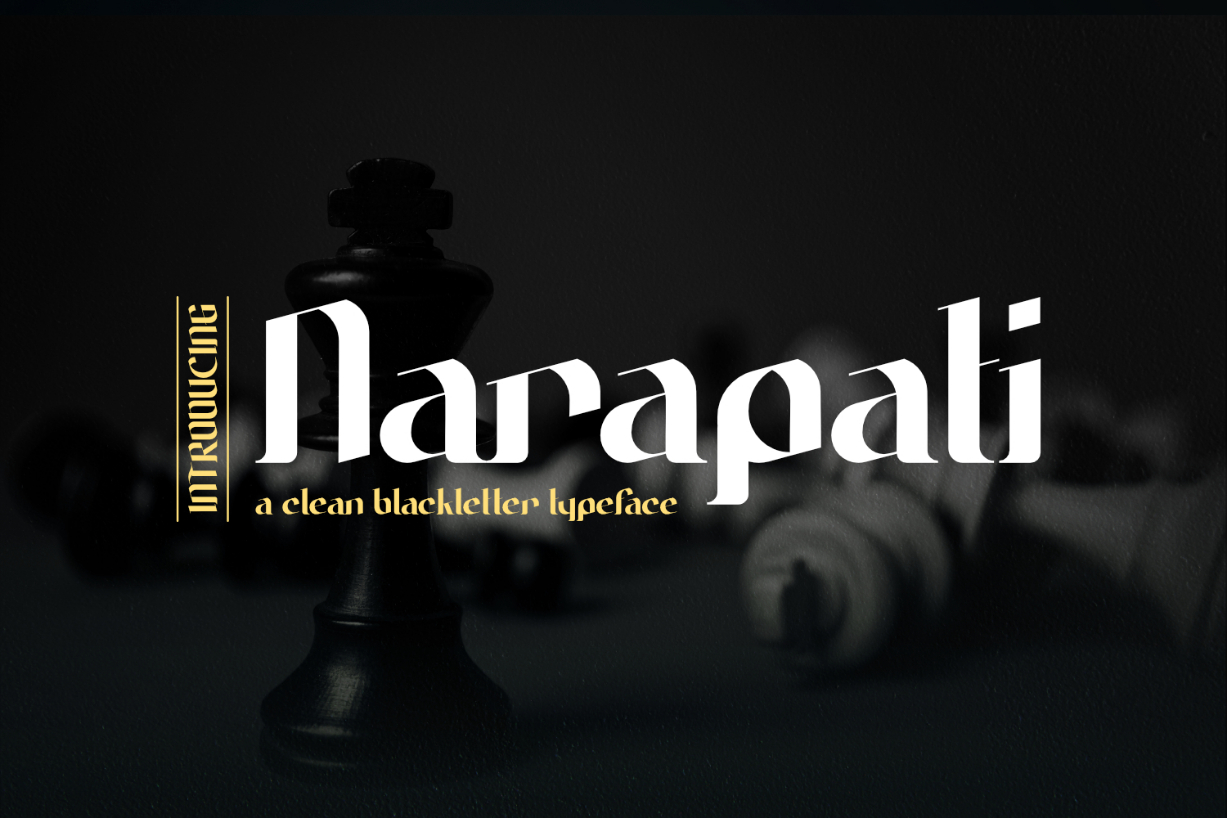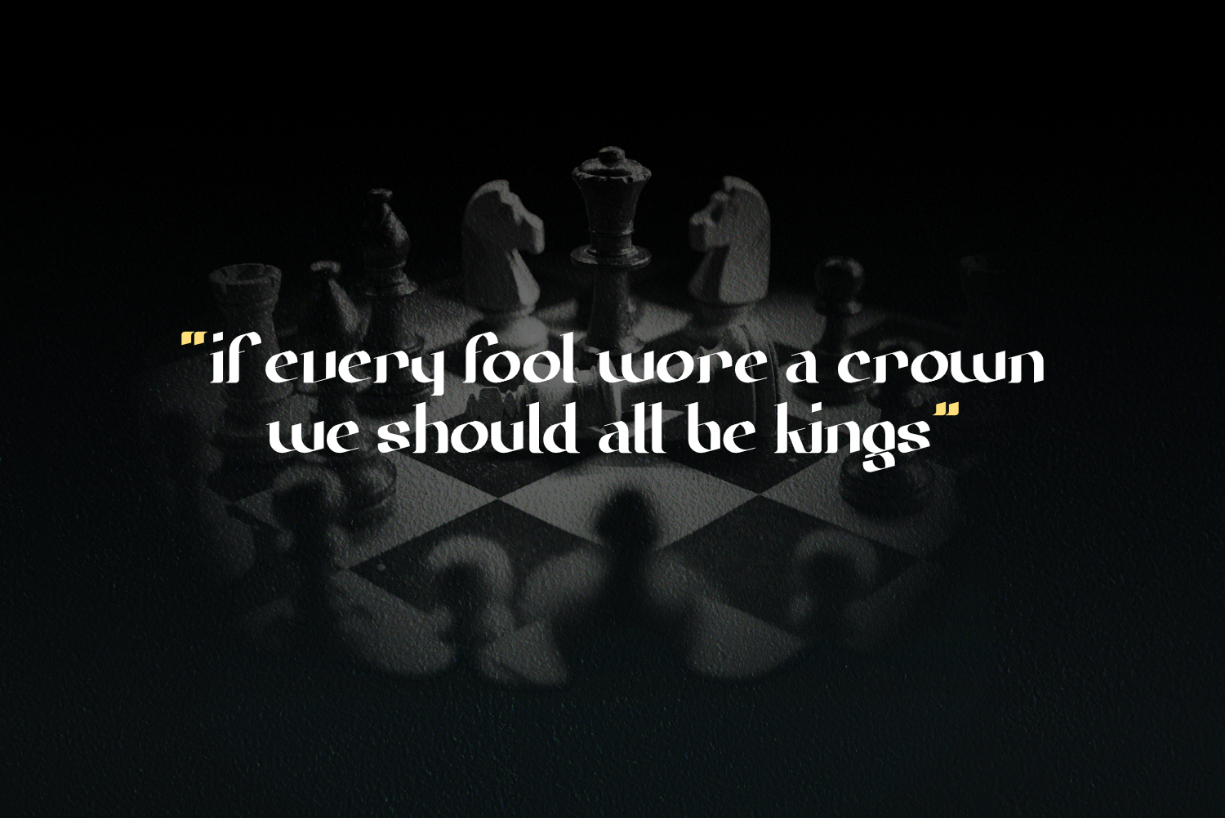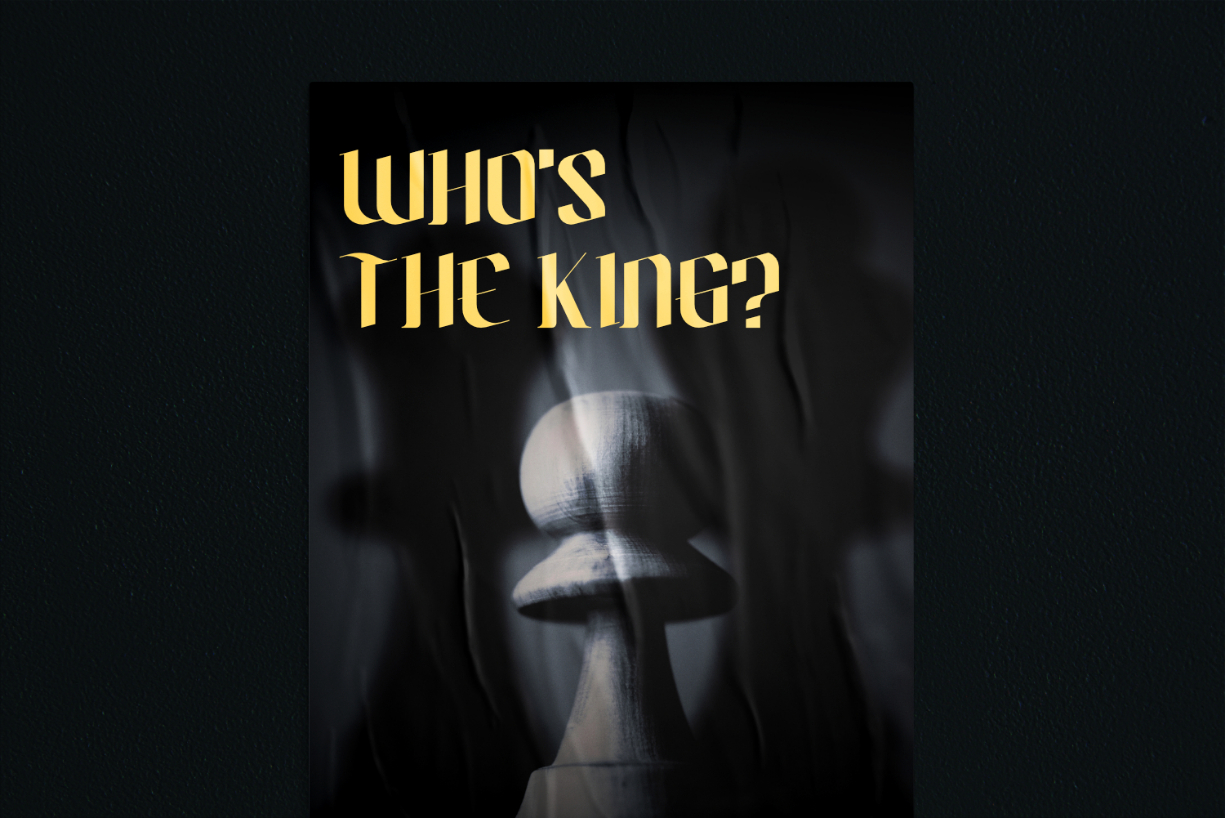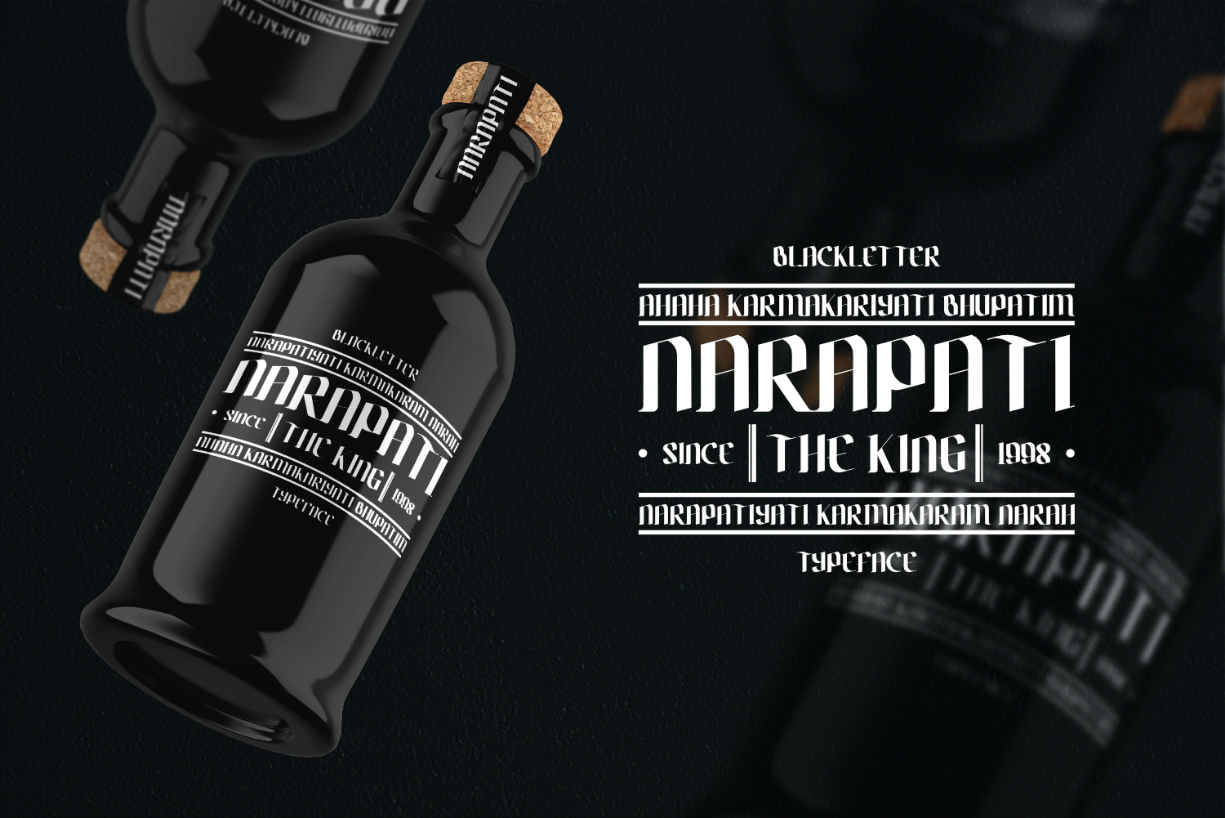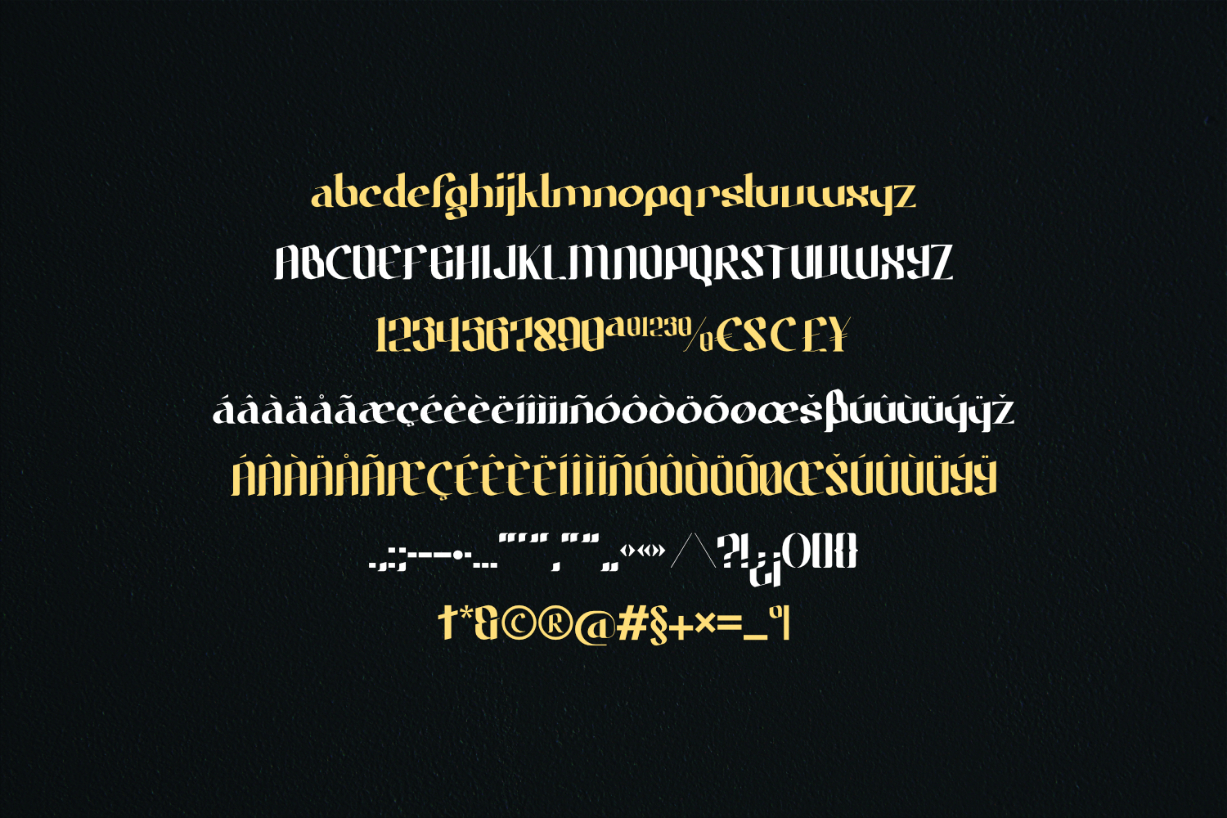
Narapati Typeface Font
About Narapati Typeface Font
Narapati is a clean blackletter font. Narapati can be used in a wide variety of projects such as logos, product packaging, logotype, letterhead, poster, apparel design, label, etc. The only limit is your imagination!